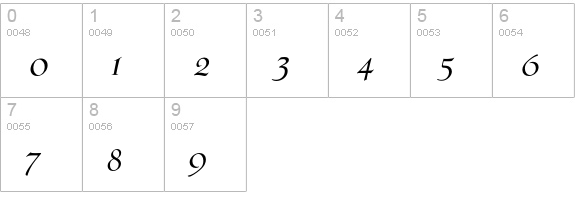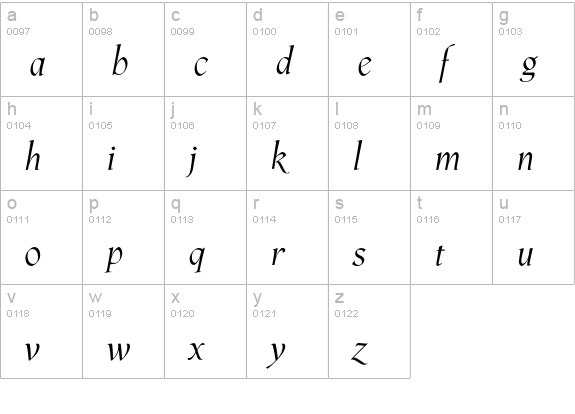
PhaistosItalic Font Details
PhaistosItalic is a beautifully crafted font that exudes elegance and sophistication. Its sleek and flowing design captures the essence of classic typography, making it a perfect choice for projects that demand a touch of refinement. With its graceful curves and delicate strokes, PhaistosItalic adds a touch of sophistication to any design. Whether used for branding, editorial layouts, or invitations, this font effortlessly elevates the visual appeal of any project. What sets PhaistosItalic apart is its versatility. It can seamlessly transition from formal to informal, making it suitable for a wide range of applications. Its timeless appeal ensures that it will never go out of style, making it a reliable choice for designers and creatives alike. But what truly sets PhaistosItalic apart is its accessibility. This font is freely available to download at FontsMarket.com, allowing designers to enhance their projects without breaking the bank. It's a rare gem in the world of typography, where quality often comes with a hefty price tag. So, if you're looking for a font that combines elegance, versatility, and affordability, look no further than PhaistosItalic. Download it for free at FontsMarket.com and let your creativity soar.